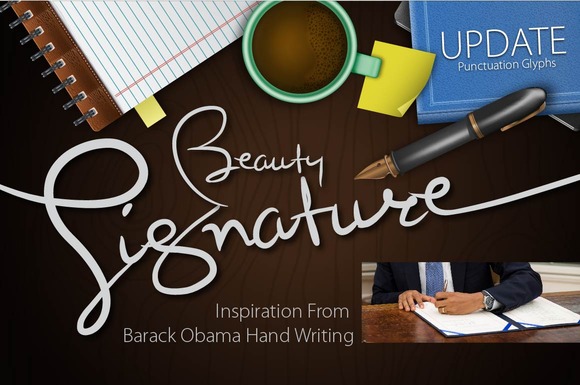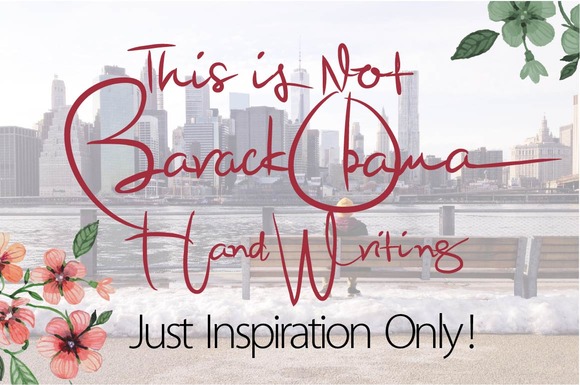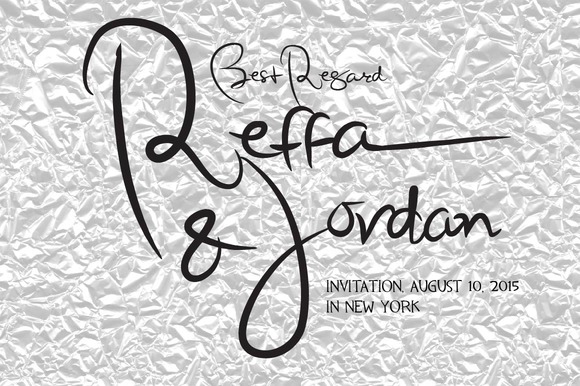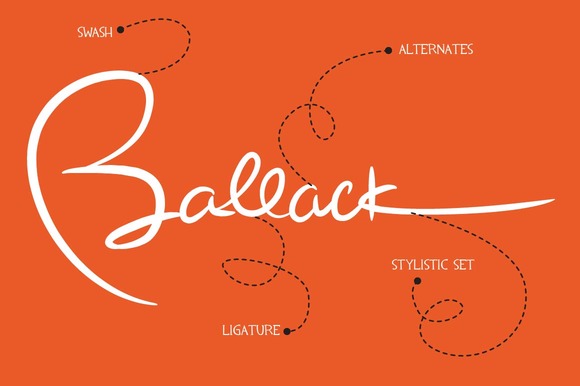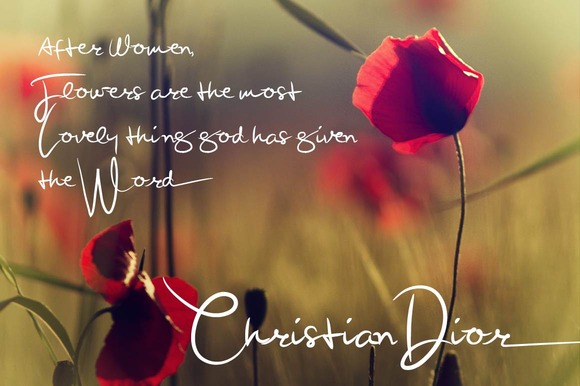
Beauty Signature Font
About Beauty Signature Font
This elegant typeface is inspired by the handwriting of Barack Obama. It can be used for various purposes such as headings, logos, invitations, t-shirt designs, greeting cards, posters, labels, book covers, brochures and much more!